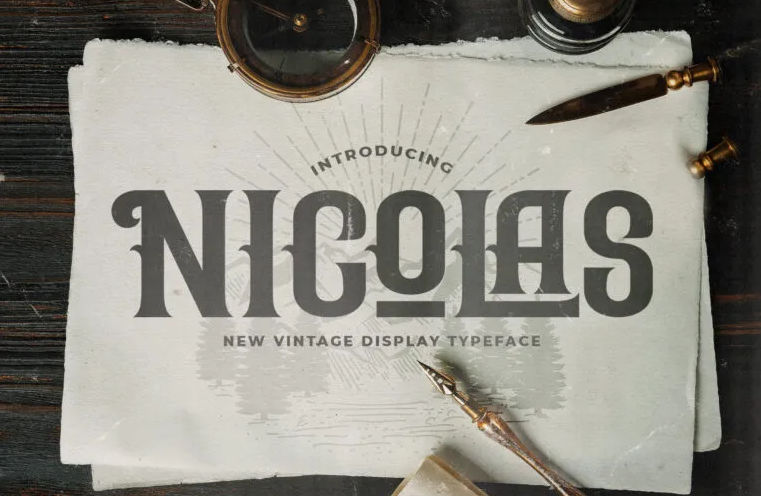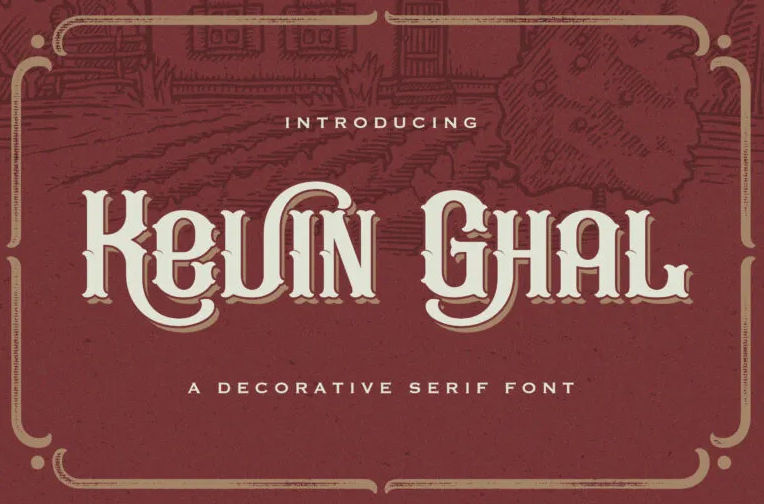
12 Brave and Peace Fonts to Bring Serenity to Your Designs
Many people desire some encouragement, especially in hardship situations. Adding a peace font will give some invigorating messages to your design. Therefore, you can keep your audience motivated to fight for peace.
You will find the best peaceful fonts to cheer up your audience here. Stay with us!
Curated Peace Font for Enlivening Artwork: 12 Top Choices!
Take a look at our top recommendations for awe-inspiring fonts from the String Labs Creative collection to speak your peaceful wisdom!
1. Rose Knight
Rose Knight font the brave and loving font
The torn-like serif in Rose Knight font evokes the feeling of bravery and nobility. Besides, the stylistic swashes make the overall design look elegant. Thus, this font will be befitting to encourage peaceful messages.
For example, you can design artwork for a campaign related to the current dreadful situation in Palestine. The people of Palestine are fighting to achieve freedom and peace. Hopefully, this font reflects their bravery and dignity throughout the struggle, thus evoking empathy and support from your audience to sound their freedom.
2. Steffany Wolfen
Steffany Wolfen font the knighthood font
Next, meet Steffany Wolfen font. This font has intricate designs like the blackletter font but is still distinguishable from other blackletter fonts. The design reminds us of the act of knighthood on the battlefield.
3. Rafiquel
Rafiquel font, the Victorian aesthetic font
The Victorian-style font, like Rafiquel font, knows how to deliver a sense of majesty and bravery. Therefore, this font is the font peace to embrace serenity. Additionally, the dramatic thick and thin glyphs make the typeface look refined.
4. Ardilah Kafi
the retro peaceful font, Ardilah Kafi font
Ardilah Kafi font has additional stylistic ligatures to make your design more classic and romantic.  Besides, this font can also bring you to the good old days when everything was easy and calming. Hence, you can use the font as your peace font, especially to bring nostalgia.
5. Bonwick Weaver
Bonwick Weaver font, the knighthood font
As a Victorian-style font, Bonwick Weaver font invokes the atmosphere of nobility and courage. Unlike other blackletter fonts, this font has a simple design and decent readability. This legibility will help you to deliver messages in your artwork correctly.
6. Kevin Ghal
Kevin Ghal font, the peaceful blackletter font
There are many ways to convey the word peace in different fonts. Kevin Ghal font can do that with its unique typeforms. The font has a robust look with an adventurous feeling to make your project more charismatic.
7. Hadfim
the Victorian aesthetic font, Hadfim font
Hadfim font can express the feeling of simplicity yet graceful. With its charming letterform, design kerning, and proper readability, the font will project tranquility to any design project you are working on.
8. Hewina
the Medieval peaceful font, Hewina font
Hewina font is another Victorian style that is suitable as a peace font. The font looks courageous with the torn-like serifs and consistent spacing. Thus, the font will be suitable for masculine design products.
9. Avalen Rekas
Avalen Rekas font, the Arabic aesthetic peace and love font
The Avalen Rekas is an appealing choice of peace and love font. This font has a steady shape but elaborated thick and thin strokes. As a result, the font appears dynamic with a majestic yet romantic look that reflects the protection for peace and love theme.
10. The White Knight
A calligraphic blackletter font, The White Knight font
The White Knight font is a distinguished blackletter font. The font appears artistic with its dramatic strokes. Moreover, stylistic ligatures and swashes make the design beautiful.
11. Raizen
the brave and loving font, Raizen font
Raizen has an extraordinary design that makes it look distinctive with a consistent eccentric shape. Also, it has small torn-like serifs that make it look more charming, fitting for designs with a peace theme.
12. Nicolas
the peace font, Nicolas new vintage font
Nicolas font will do a great job of delivering peaceful messages. This font is not entirely plain. The design is charming enough to attract your audience with its simple and legible letterforms. The bold weight of the characters can influence your audience’s emotions and actions through artwork effortlessly.
You can send peaceful messages to give encouragement to your audience, through your artwork like posters, digital postings, web designs, or printings. Of course, you will need a suitable peace font to accomplish your projects.